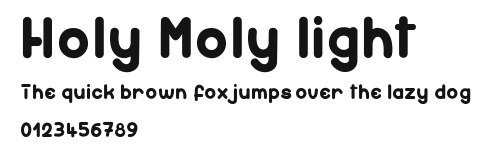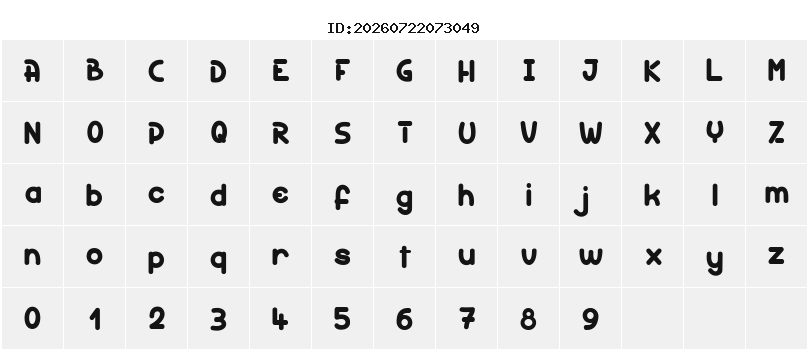
• Font Name: Holy Moly light
• Designer: dcoxy Medina Gregory
About Holy Moly light.ttf
Holy Moly light.ttf is a modern, elegant sans-serif font designed for ultimate readability and visual harmony. Perfect for branding, headlines, web design, and print materials.